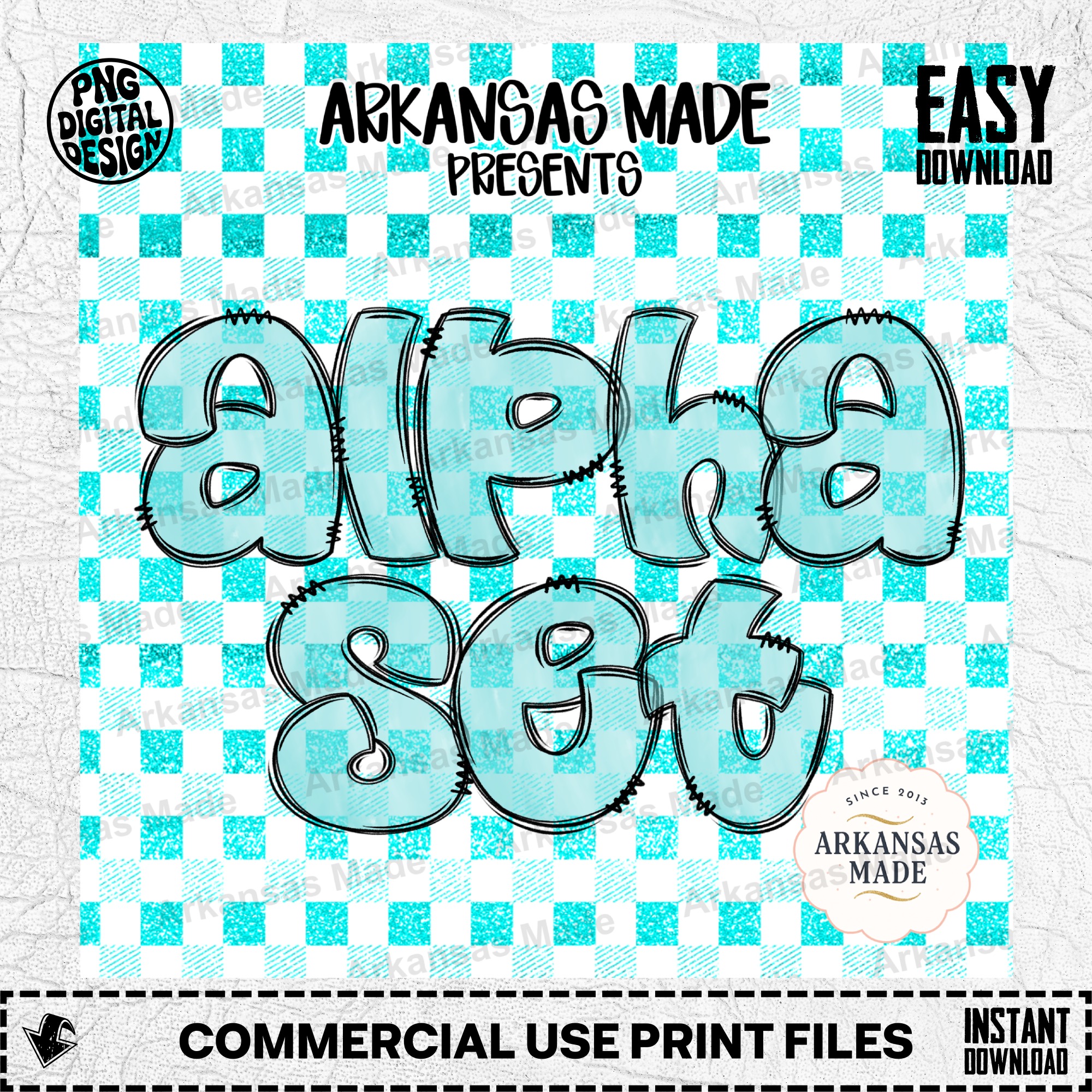
Get creative with our Teal Glitter Alpha PNG Set! Perfect for sublimation, featuring bubbly letters with a stitched outline for all your crafting needs. This versatile digital alphabet delivers a playful, cheerful vibe ideal for personalizing items, creating unique apparel, or designing vibrant party decorations. Crafters, teachers, and small business owners will adore this set for adding a touch of faux glitter charm to their projects. Use it to craft personalized gifts for birthdays, baby showers, or simply to add a custom touch to everyday items.